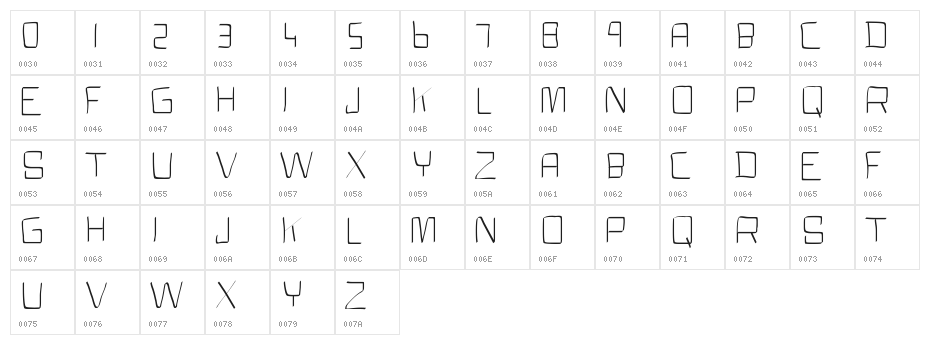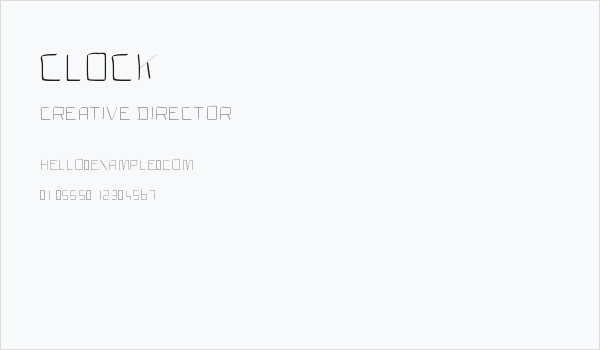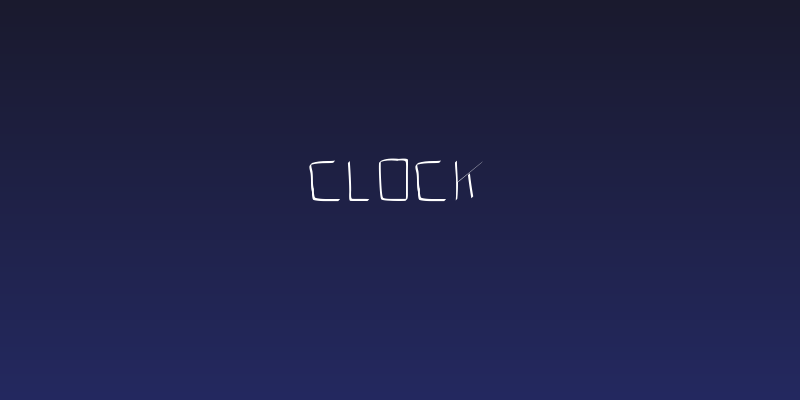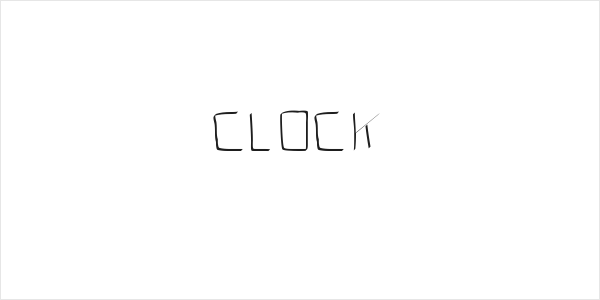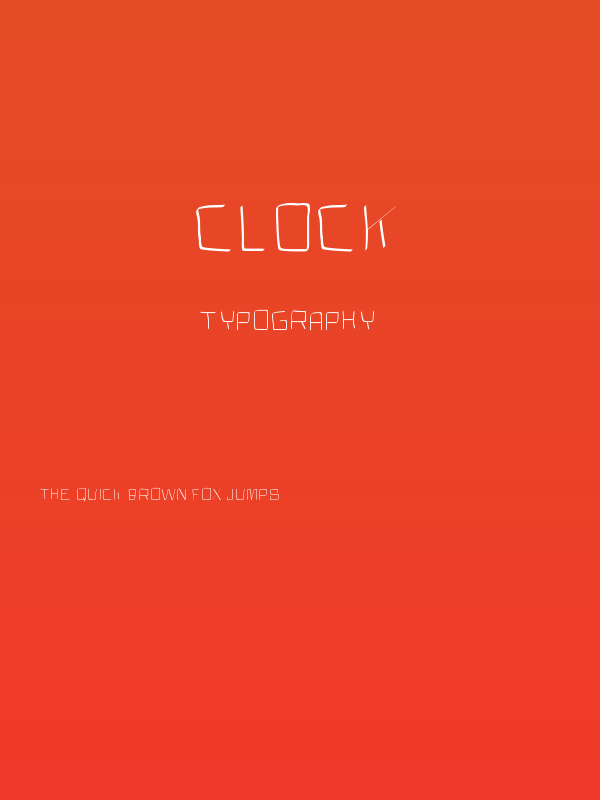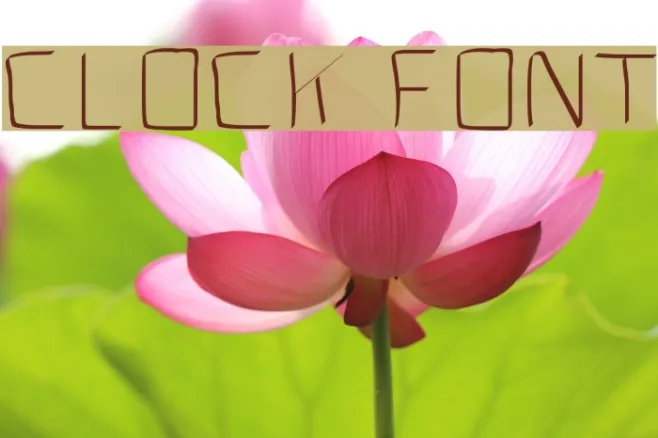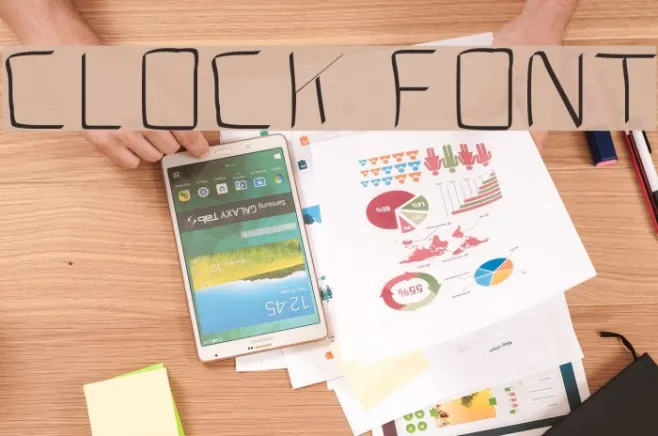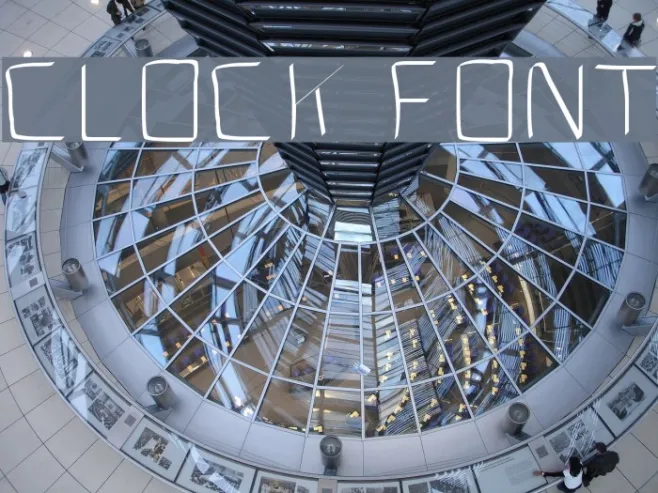
CLOCK Font
CLOCK Description
This font features a unique, angular design reminiscent of digital clock displays. Each character is composed of straight lines and sharp angles, giving it a futuristic and mechanical appearance. The uppercase letters are uniform in height, while the lowercase letters maintain a consistent style, ensuring readability. Numbers follow the same geometric pattern, enhancing the cohesive look. The font's distinct style makes it ideal for projects that require a modern, tech-inspired aesthetic. Its clean lines and structured form make it suitable for digital interfaces, tech branding, and futuristic designs.
CLOCK UPPERCASE
CLOCK LOWERCASE
CLOCK OTHER CHARS
| Proposed Projects | Ideal for digital interfaces, tech branding, futuristic designs, and modern art projects. |